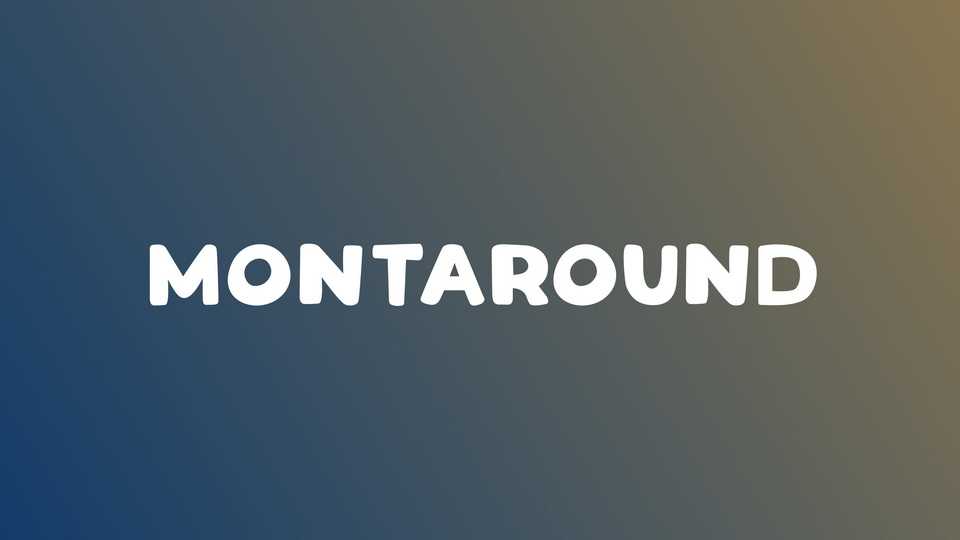
Download Montaround font, a display typeface that was made with playfulness in mind. Montaround is perfect for posters, books, crafts, cartoons and even more.